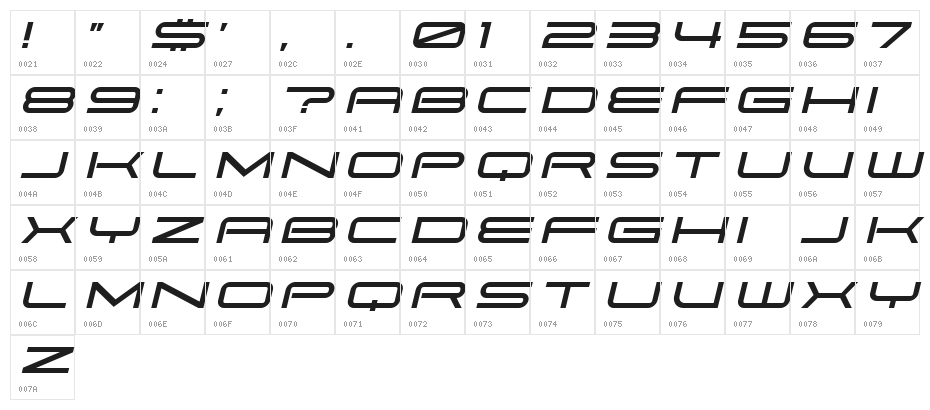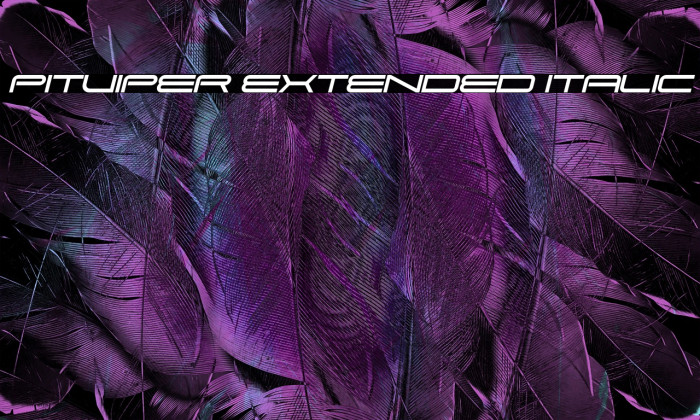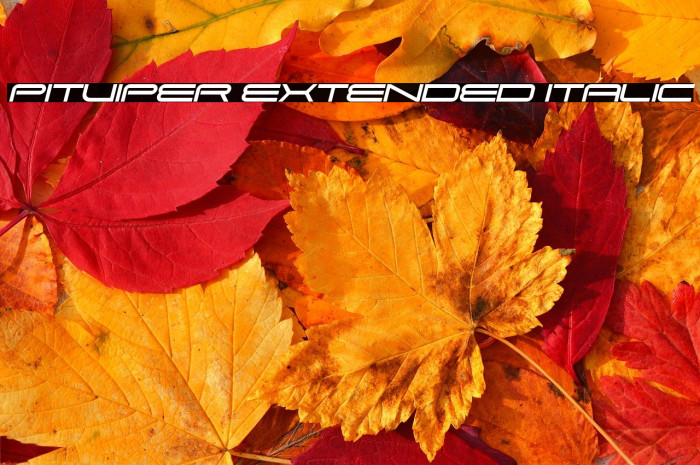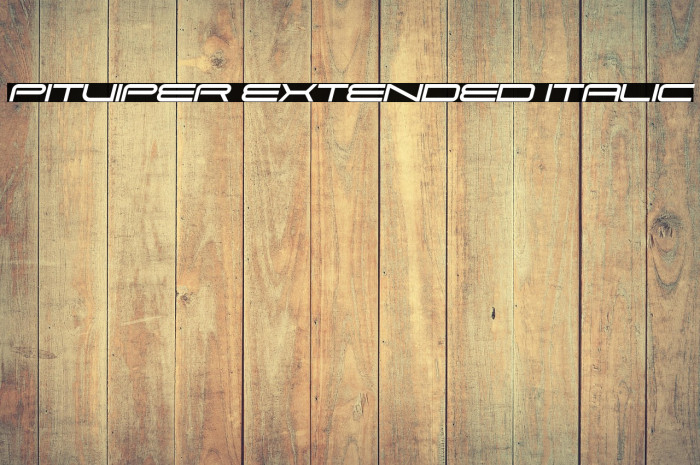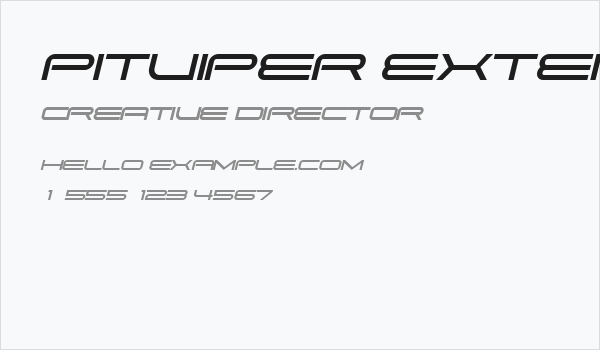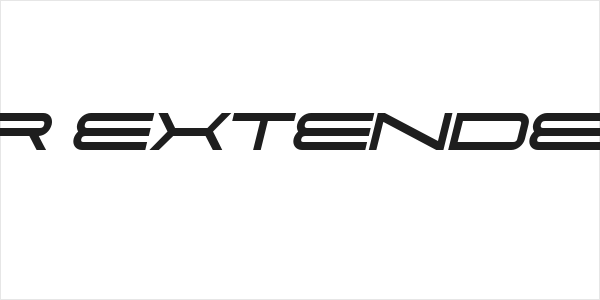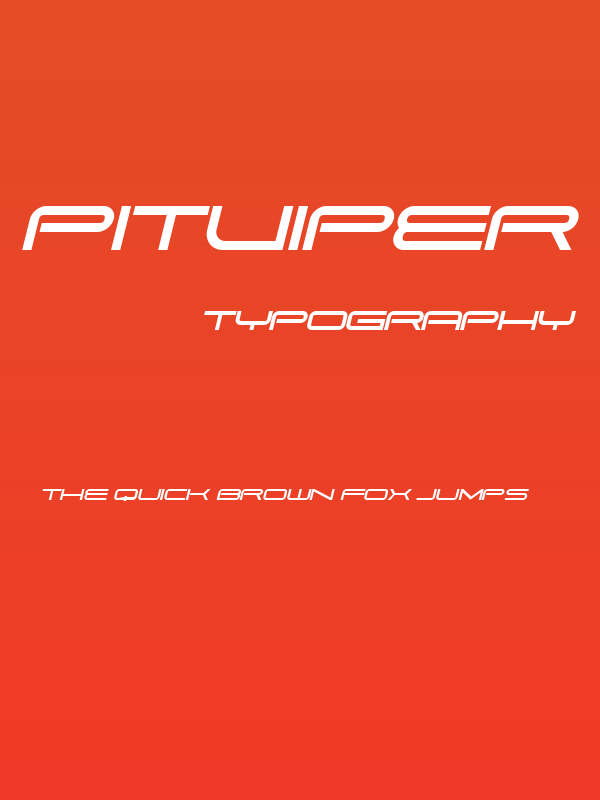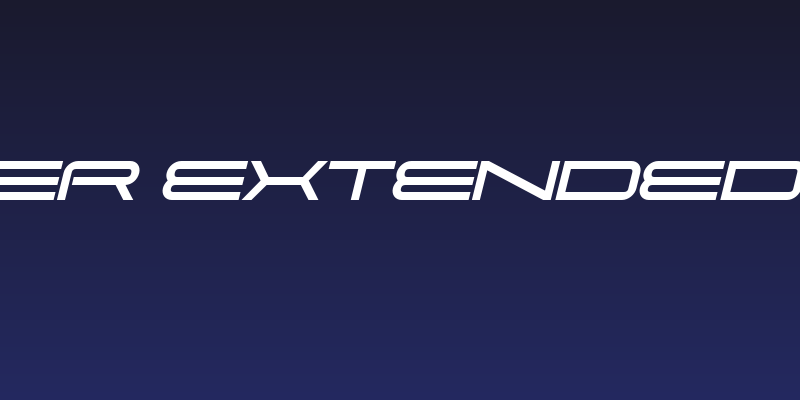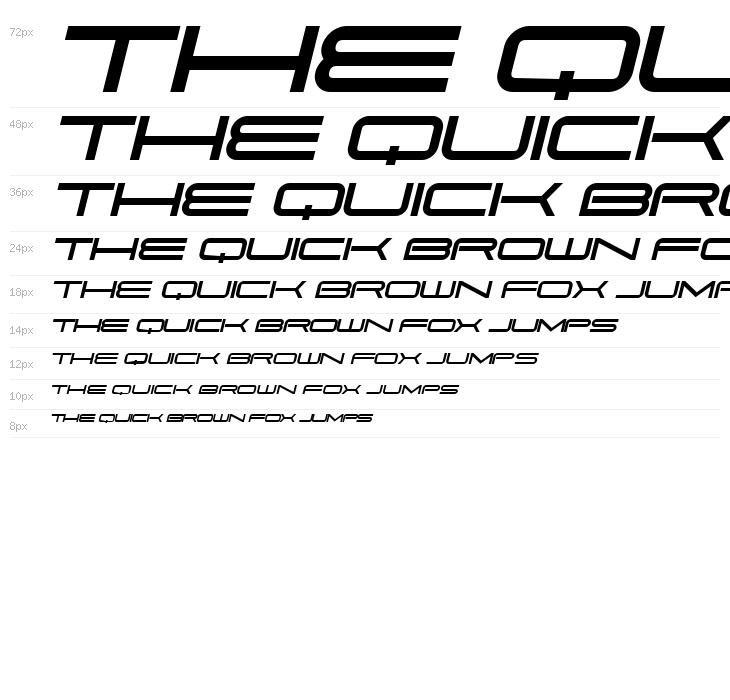
Pitviper Extended Italic Font
Pitviper Extended Italic Description
This font features a sleek, futuristic design with an italicized, extended style. The characters are elongated and have a distinct slant, giving them a dynamic and forward-moving appearance. The strokes are consistent in thickness, providing a uniform look across all characters. The uppercase and lowercase letters maintain a cohesive style, with sharp angles and clean lines. The numerals and special characters follow the same design principles, ensuring a harmonious overall appearance. This font exudes a modern and technological vibe, making it suitable for projects that require a contemporary and edgy aesthetic.
| Proposed Projects | Ideal for technology branding, sci-fi posters, video game titles, and modern web design. |